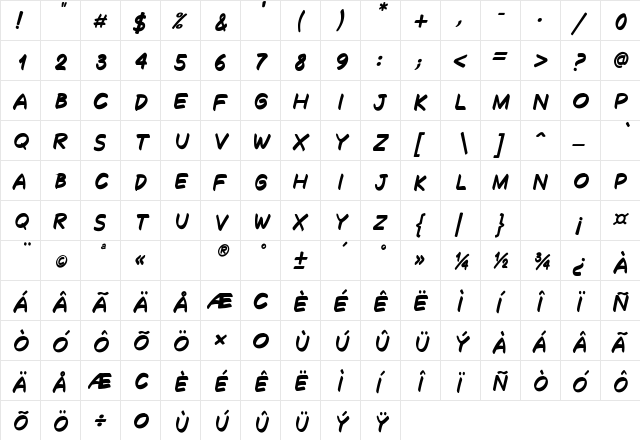
Decalk BoldItalic
Design Context for Decalk Typeface
Decalk is a composed and adaptable typeface that performs quietly and consistently across a wide range of design contexts. The dynamic lean of this cut emphasises speed and emphasis in any layout. The heavy weight commands attention and anchors typographic hierarchies.
Pro Tip: Try Decalk for annotation and caption copy alongside an upright companion — the contrast in angle creates a dynamic but ordered typographic system.